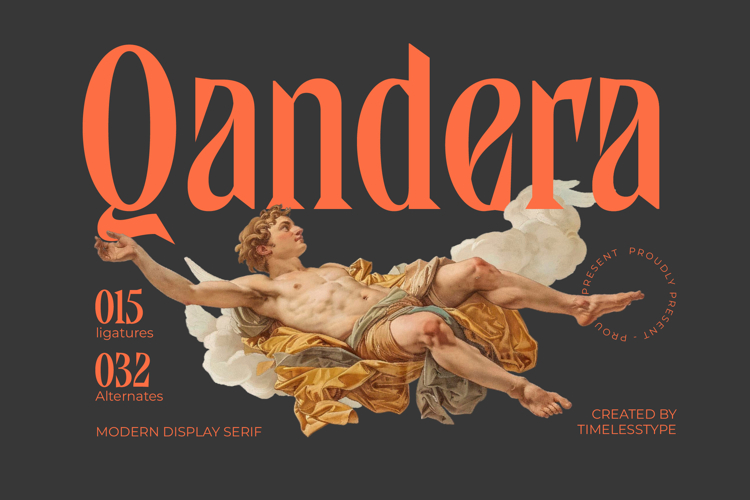
Qandera - Modern Display Serif Font
Elevate your designs with unparalleled elegance. Introducing Qandera - Modern Display Serif Font, a masterpiece that effortlessly blends classical refinement with a contemporary edge. This font exudes sophistication through its high-contrast letterforms, featuring sharp serifs and graceful curves that command attention. It's a truly timeless display serif, crafted for conveying prestige and artistry in your work.
Unlock limitless creative possibilities. Qandera - Modern Display Serif Font is more than just a typeface; it’s a comprehensive creative toolkit. With 015 ligatures and 032 alternates, it offers extensive customization options to craft truly unique typographic compositions. These features provide exceptional design flexibility, allowing you to infuse your projects with distinctive character and expressive potential, ensuring your message stands out.
Perfect for making an impactful statement in exclusive markets. Qandera - Modern Display Serif Font is ideal for luxury branding, high-end packaging, editorial design, fashion spreads, and sophisticated advertising. It's perfect for projects demanding a touch of refined sophistication and authoritative presence. With its extensive multilingual support, Qandera - Modern Display Serif Font adapts seamlessly across global markets, making it incredibly versatile for international projects.